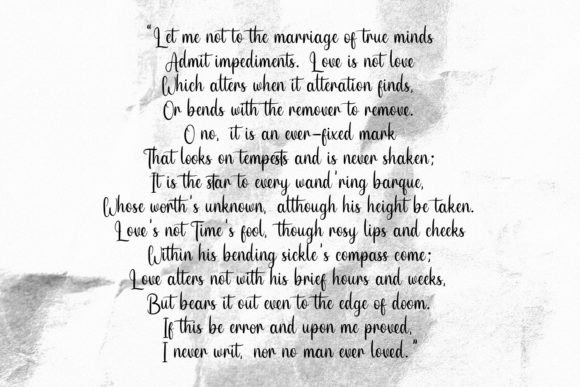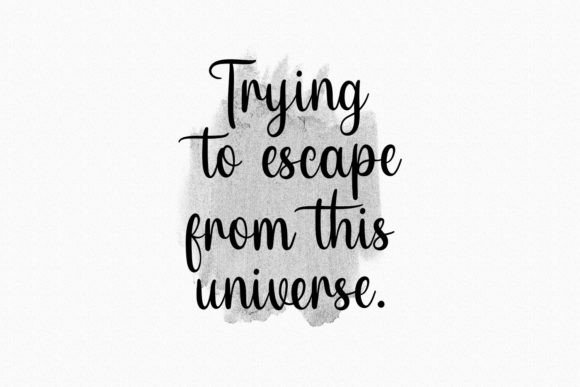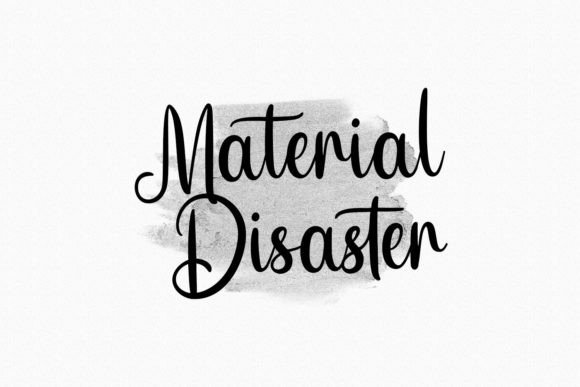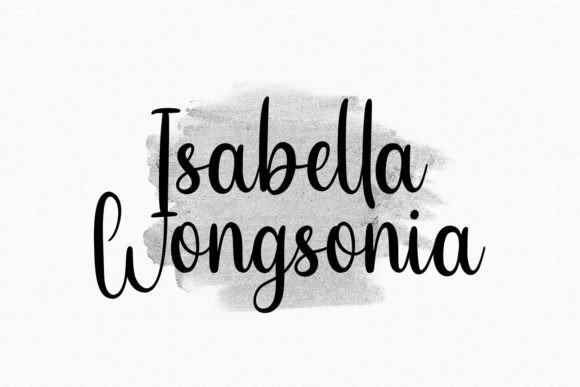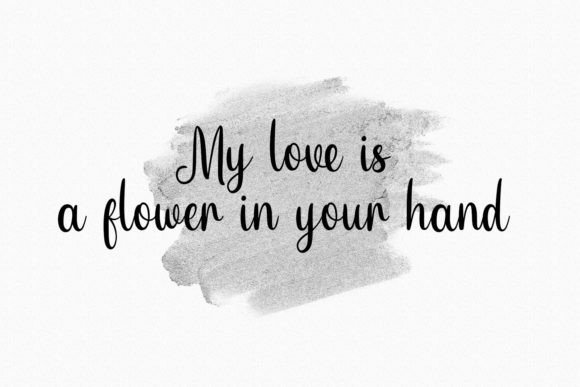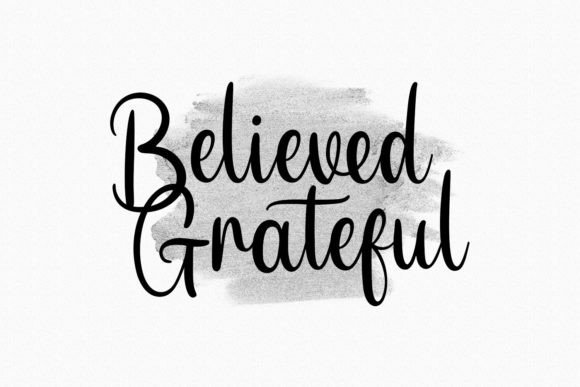
Introduction to Ringheart Font
Have you ever been working on a creative project and suddenly felt like something is missing – a spark that elevates your design from good to great? That’s exactly what happened to me when I stumbled upon the Ringheart Font. Its unique blend of classic calligraphy and modern flair instantly captured my attention, and I knew I had to learn more.
As a designer, we’re always on the lookout for high-quality resources to bring our vision to life. The Ringheart Font is a valuable addition to any design arsenal, offering a level of sophistication and elegance that’s perfect for a wide range of creative projects. With its transparent background and sleek, modern lines, this font is sure to become a go-to choice for designers seeking a stylish and professional look.
Key Features of Ringheart Font
- Unique, hand-drawn style with a transparent background for seamless integration
- Includes a range of glyphs and characters, suitable for a variety of creative applications
- Designed with a large x-height and clear letterforms for easy readability
Honest Review: Ringheart Font
I recently had the chance to work with the Ringheart Font, and I must say it’s been a game-changer for my creative projects. This font is perfect for anyone looking for a high-quality design resource that’s easy to use and customize.
Here are some of the things that work well with the Ringheart Font:
- ✨ Easy to read and visually appealing, even on a transparent background
- ✨ Includes a wide range of characters, including special symbols and punctuation marks
- ⚠️ Limited support for languages that require complex typography
- ⚠️ Some users may find the font a bit too bold or overpowering
Overall, I’m thoroughly impressed with the Ringheart Font. It’s a versatile and high-quality design resource that’s perfect for anyone working on a creative project. With its transparent background and wide range of characters, it’s a great addition to any designer’s toolkit.
The Ringheart Font is a high-quality design resource ideal for creative projects requiring a unique and stylish touch. Its transparent background makes it versatile for use in various design applications.
Getting the Most Out of Ringheart Font
For optimal results, use the Ringheart Font in conjunction with other design elements that complement its style. Experiment with different font sizes, colors, and arrangements to achieve a unique look.
The Ringheart Font is suitable for various design projects, including branding, graphics, presentations, and documents. Its high-quality design and transparent background make it an excellent choice for creative professionals and individuals.
Compared to Ringheart Font, Great Vibes has a more refined and polished look, making it suitable for high-end design projects. While Ringheart Font has a more playful and quirky feel, Great Vibes is more versatile and can be used in a wide range of creative projects.
Alex Brush is a high-quality, elegant script font that’s perfect for creative projects that require a touch of sophistication and elegance. It’s ideal for designs that need a high-quality, professional look, such as business cards, letterheads, and marketing materials.
Q: Does the Ringheart Font have a transparent background?
Yes, the Ringheart Font features a transparent background, making it ideal for use on top of images or other design elements. This allows for greater flexibility and creative freedom in your design projects.